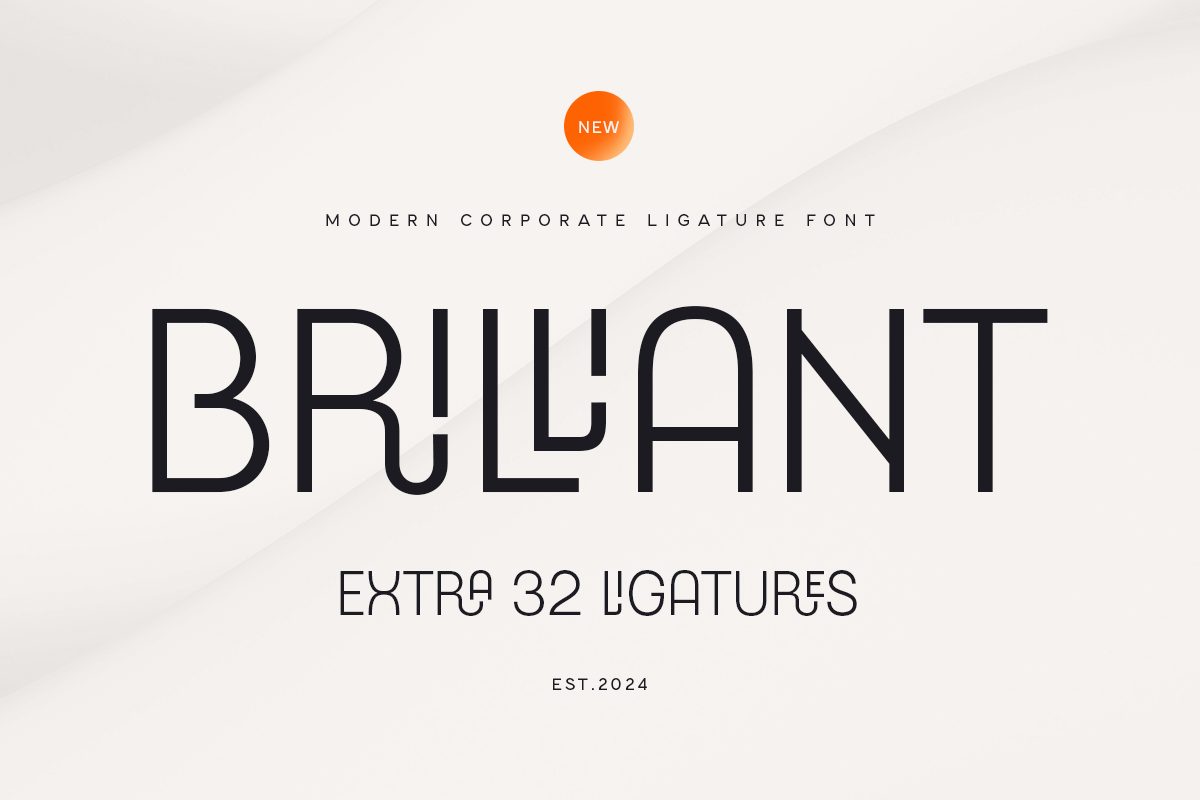
Brilliant
-Modern Corporate Ligature Font
Brilliant
An Unique Modern Ligature Font that we created special for Professional and Modern branding needs that will give you more Unique look, with alternates and ligatures in unique shape will be ready to add value of your brand. It's so nice to leverage designer or product owner that need solutions to make their design look more Professional and modern. And specially for this font, We prepared any alternate and Ligature characters to help you create unlimited variations for your creative needs.